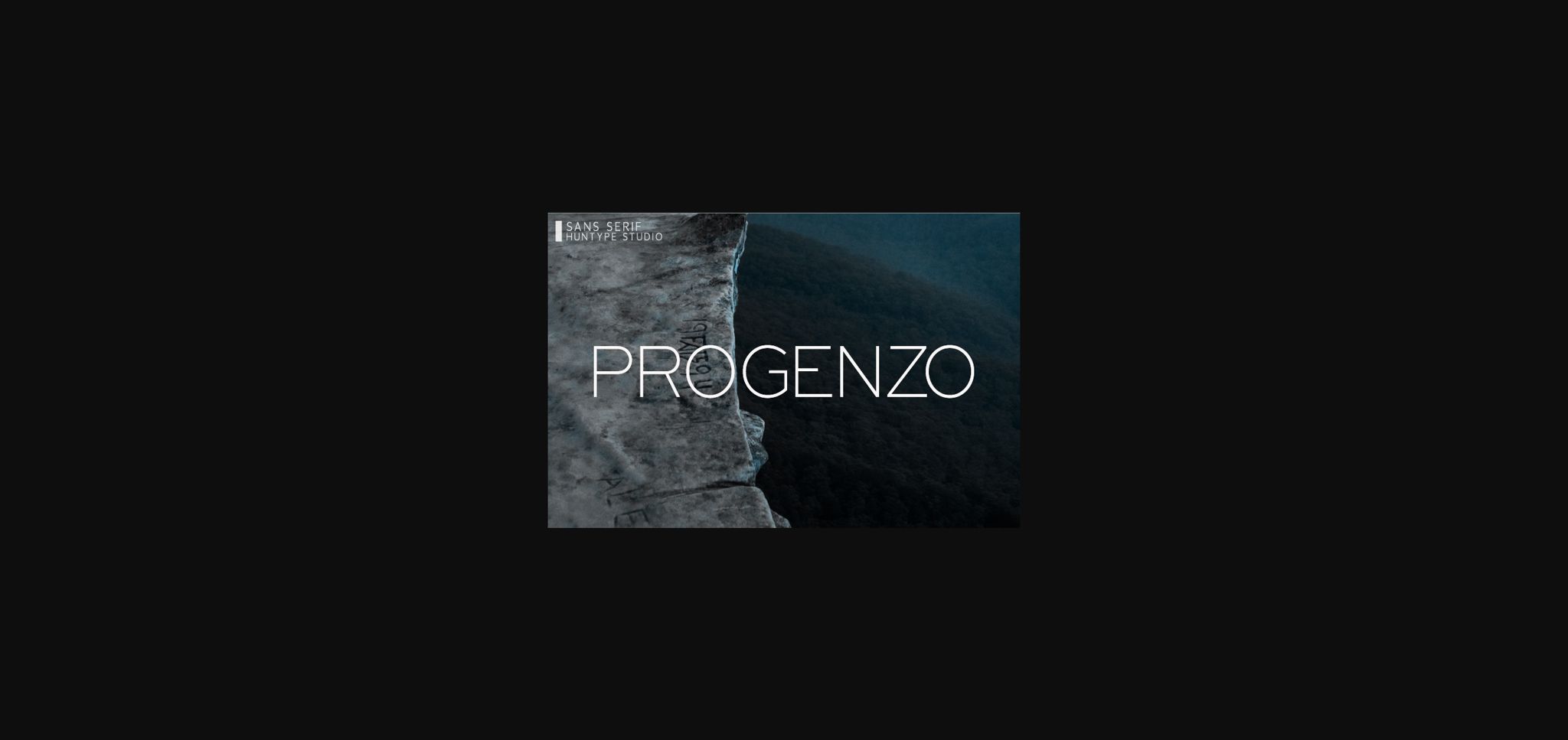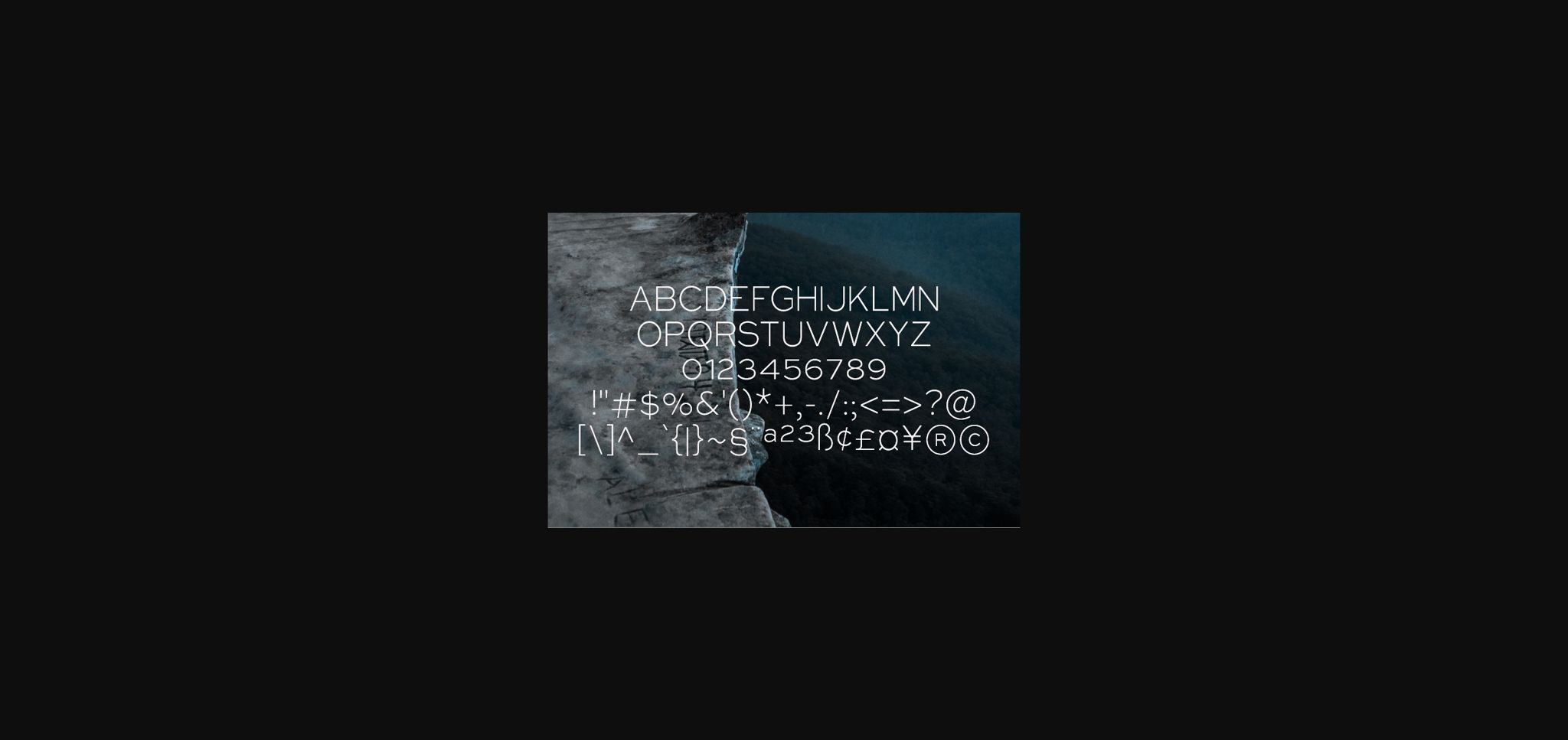
Progenzo is an elegant sans serif font. With its neat and beautiful arrangement of letters, this typeface will look outstanding in both formal and non-formal designs.